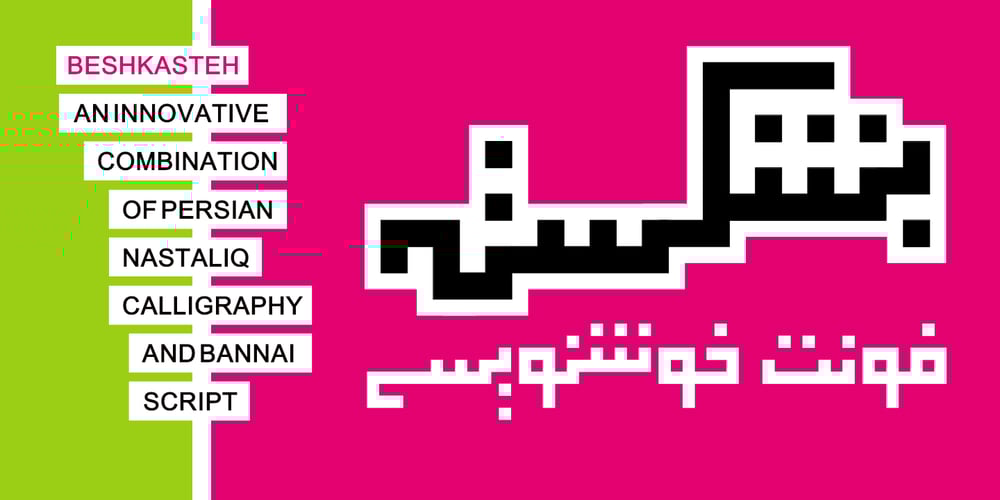
Beshkasteh Font Family was designed by Shahab Siavash and published by Si47ash Fonts. Beshkasteh contains 1 styles and family package options. An innovative combination between Persian Nastaliq calligraphy and Bannai script. Beshkasteh is designed so that the letters are attached to each other while going up the baseline. In result it creates an experience of typing a Kufic Bannai script like it is a Nastaliq or Tahriri calligraphic font. This inventive approach to Persian And Arabic calligraphy scripts is what a creative designer wants for his artistic projects.Shahab Siavash, the designer has done more than 30 fonts and got featured on Behance, Microsoft, McGill University research website, Hackernoon, Fontself, FontsInUse,… Astaneh text and headline font which is one of his latest designs, already got professional typographers, lay-out and book designers’ attention as well as some of the most recognizable publications in Arabic/Persian communities.